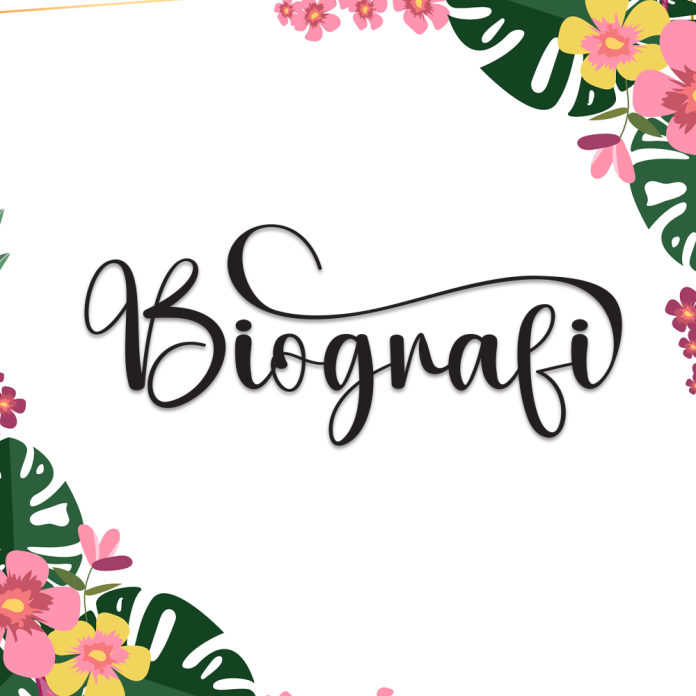
Biografi is a modern handwriting font that combines elegance with a touch of authenticity. Designed to feel like a beautifully written journal or personal letter, it’s perfect for projects that need a refined yet approachable handwritten look.
Ideal for branding, signature logos, quotes, invitations, and editorial designs, Biografi adds a human touch that feels both stylish and sincere.
Elegant and clean handwritten style
Natural flow with a signature-like feel
Great for branding, personal projects, stationery, and lifestyle content
Tell your story with Biografi, the handwriting font that brings personality and sophistication to every word.